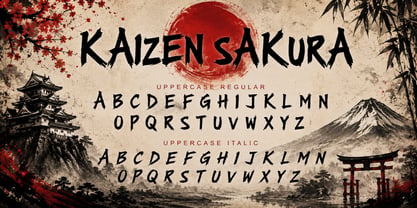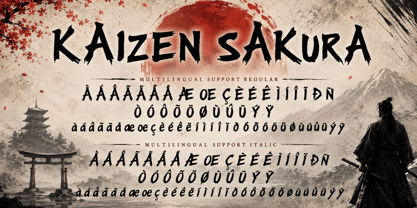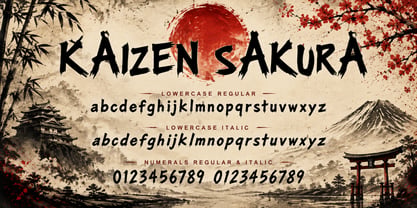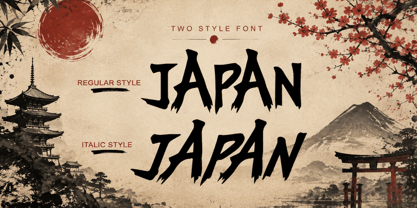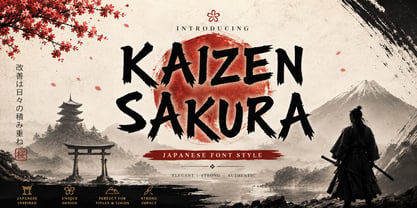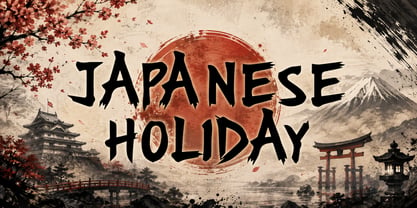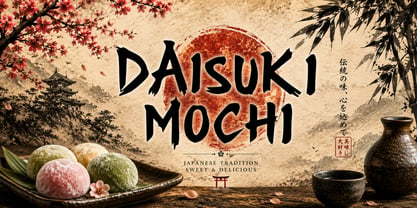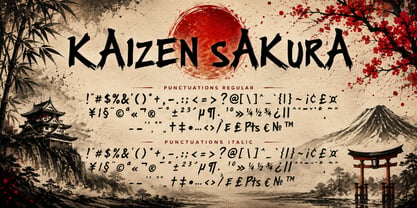
Kaizen Sakura Italic
The Kaizen Sakura Italic Font Family was designed by Isroni Yoga Prasetya and published by Yoga Letter. Kaizen Sakura Italic contains 2 styles and family package options. More about this family
Kaizen Sakura is a striking, Japanese-inspired display font that seamlessly blends traditional brushstrokes with modern design elements. Its robust, hand-crafted characters provide an authentic and impactful visual presence, making it suitable for a wide range of applications. Perfect for movie titles, logos, posters, branding, packaging, and culturally themed designs, this font brings elegance, strength, and a timeless Japanese aesthetic to your creative projects. With multiple weights and OpenType features, Kaizen Sakura adds versatility and style to your designs, making it an ideal choice for any artistic endeavor.